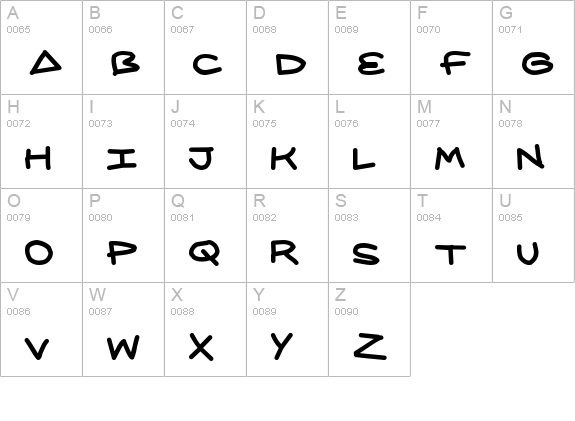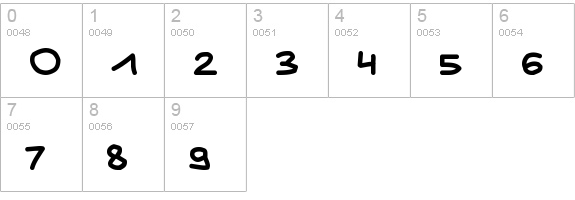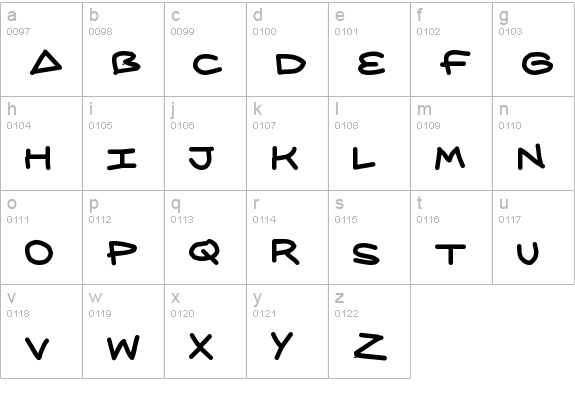
AQZ crew Font Details
Introducing AQZ Crew Font, a bold and dynamic typeface designed to make a statement. This versatile font is perfect for projects that require a strong and modern look, such as branding, logos, headlines, and more. With its clean lines and unique character shapes, AQZ Crew Font stands out from the crowd and leaves a lasting impression. What sets AQZ Crew Font apart is not only its striking design but also the fact that it is completely free to use. Yes, you heard that right - this stylish font is freely available to download at FontsMarket.com. Whether you're a designer looking to add a powerful touch to your creations or a content creator seeking a new font for your projects, AQZ Crew Font is the perfect choice. Don't miss out on the opportunity to enhance your designs with this eye-catching font. Download AQZ Crew Font today and unleash your creativity like never before!